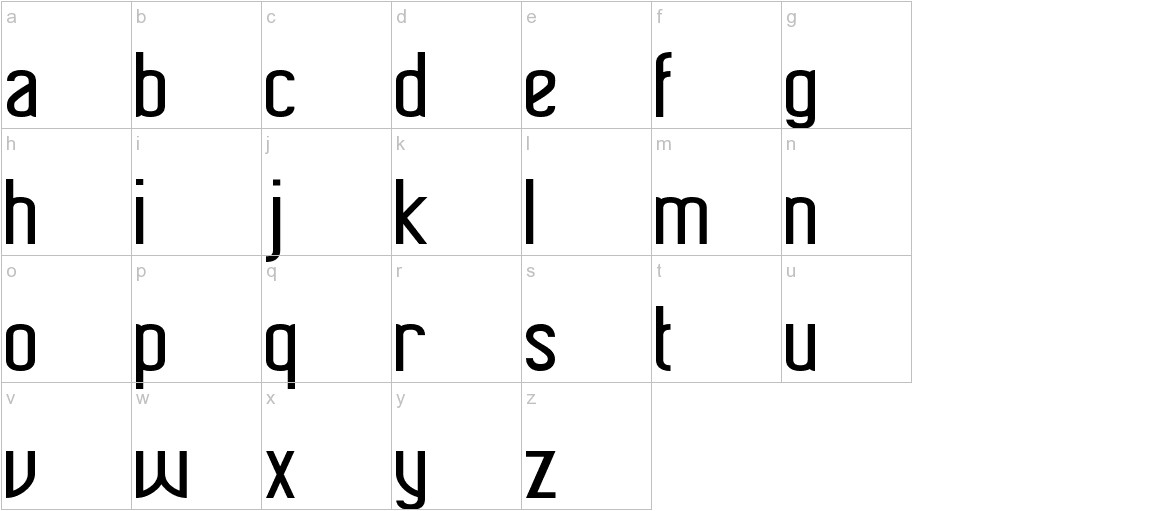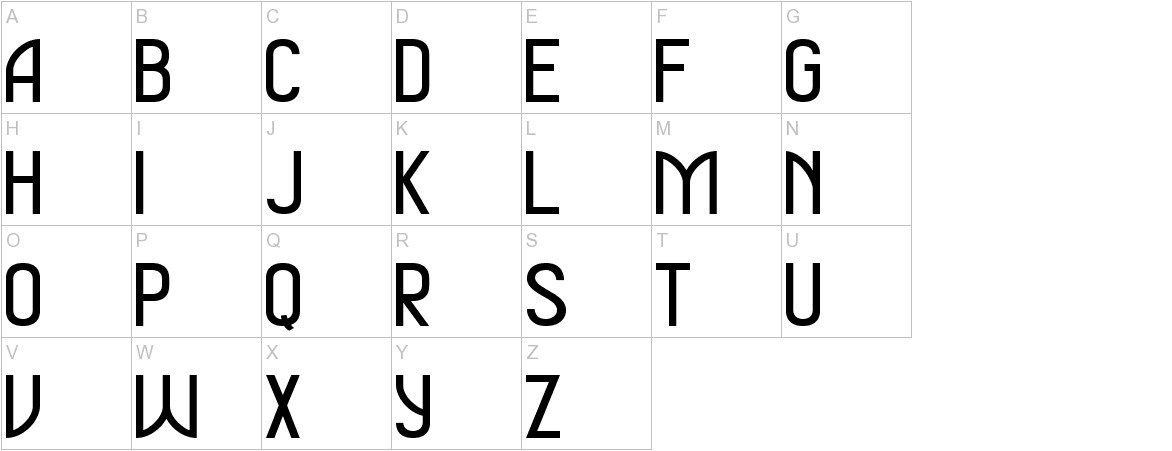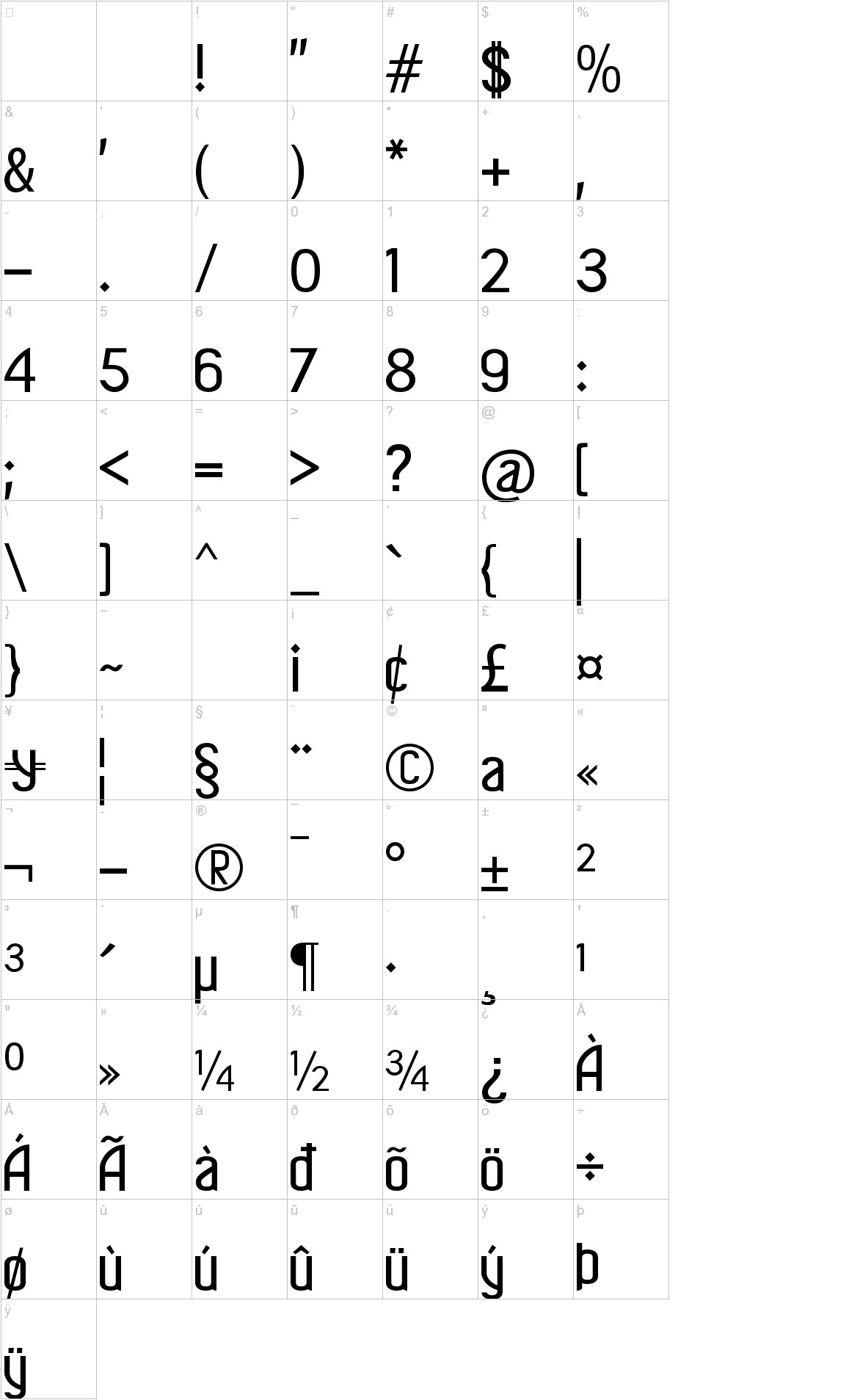
soputan
Inspired from a volcano located in the province of North Sulawesi - Indonesia, these fonts are made to appreciate the grandeur of that's mountain.